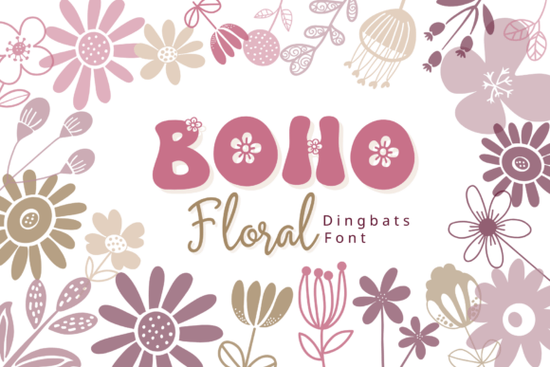
If you're looking for a way to add a touch of whimsy and nature-inspired elegance to your designs, the Boho Floral Font is a fantastic choice. This charming dingbat font features hand-drawn, boho-style floral illustrations that can bring a cozy, feminine aesthetic to any project.
What Makes Boho Floral Font Stand Out?
Boho Floral Doodle is not just another font; it's a creative tool packed with unique floral elements. Each letter (A–Z, a–z) and number (0–9) is mapped to a different floral illustration, making it incredibly easy to use in any design software that supports fonts. Whether you're working on wedding invitations, logo design, or Instagram graphics, this font offers a seamless way to incorporate beautiful, organic shapes into your work.
How Can You Use Boho Floral Font in Your Designs?
The versatility of Boho Floral Dingbats makes it a go-to resource for designers, crafters, and small businesses. Here are some practical ways to integrate this font into your projects:
- Wedding Invitations: Add a touch of elegance and charm to your wedding stationery by using the floral elements as decorative borders or accents.
- Logo Design: Incorporate the unique floral icons to create a memorable and visually appealing logo that stands out.
- Branding Kits: Use the font to develop a cohesive and attractive branding kit, including business cards, letterheads, and social media graphics.
- Stickers and Planners: Create custom stickers and planner pages with the floral illustrations to add a personal and artistic touch.
- Posters and Social Media Graphics: Enhance your posters and social media posts with the soft, earthy color palette and minimal linework of the Boho Floral Font.
Why Choose Boho Floral Font for Your Projects?
The Boho Floral Font is designed with the creative in mind. It saves time and effort by providing ready-to-use flower graphics without the need for vector software. The glyphs feature a variety of floral and botanical styles, from stylized daisies and blooming buds to elegant leaves and wildflower stems. This diversity ensures that each floral icon maintains visual harmony, whether used alone or in combinations.
Who Can Benefit from Using Boho Floral Font?
This font is perfect for a wide range of creative professionals and hobbyists, including:
- Designers: Add a unique and artistic touch to your designs with the hand-drawn floral elements.
- Crafters: Use the font to create beautiful and personalized DIY projects, such as scrapbooks and handmade cards.
- Print-on-Demand Sellers: Enhance your product offerings with the Boho Floral Font, making your items more appealing to customers.
- Small Businesses: Develop a strong and visually appealing brand identity with the help of this versatile and charming font.
- Creative Hobbyists: Experiment with the font in various personal and creative projects, from digital art to home decor.